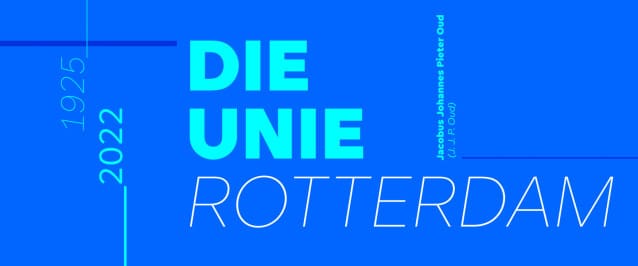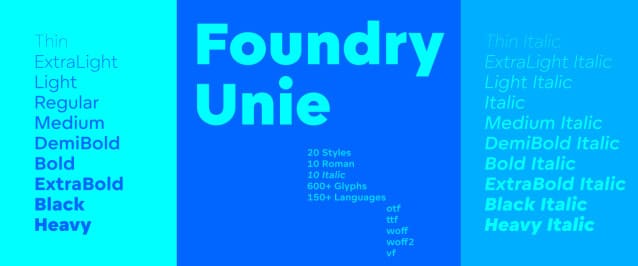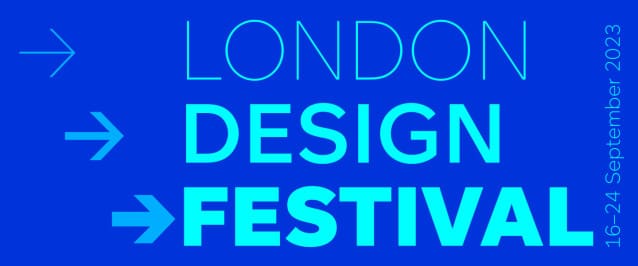
Foundry Unie Font Family, born from simplistic pan-European ideals of fraternity and working partnerships, that it works anywhere. Appropriately named, Foundry Unie owes a lot to the modernist movement in the ‘interbellen’, and to the geometric type experiments from De Stijl and Bauhaus. It also reflects the seemingly open, tolerant, friendly, hard-working, and efficient society we live in.
A geometric sans with an unmistakably European tradition. Its pedigree is discernible: Jan Tschichold’s 1929 ‘Universal’ alphabet, Paul Renner’s ‘Futura’, and Adrian Frutiger’s ‘Avenir’, which Frutiger once described as his finest work. Many other typefaces have contributed to Unie’s output, like Edward Johnson’s London Underground Transport typeface, the lowercase ‘u’, a prevalent shape from this period.
The influential and brightly coloured facade of the ‘Die Unie’ café, Rotterdam, designed by the De Stijl architect, Jacobus Johannes Pieter Oud (J. J. P. Oud), in 1925. With its inspiringly simple geometric letters emblazoned high above the street – visually shouting ‘here is a café where we can all gather together’. This open outlook into a universal future is where Foundry Unie (Dutch word for Union), naturally gained its name.
When we relaunched The Foundry Types in 2020, the new website needed a new typeface that worked well on screen and reflected our design ethos. We tried using Foundry Context from our library, that worked reasonably well but was predominately designed for print and not primarily for screen use. We felt the new font should be designed for screen (small or large), and it is more open to work at small sizes.
Furthermore, we approached designing the website and typeface with a similar philosophy to the De Stijl art movement. Where the De Stijl founders and artists believed, there was a utopian approach to aesthetics through function, line, and specific colours. And that essentialism in which the art refers to the essence at the core rather than using unnecessary elements. Also, that integration, in which all elements must be balanced and equal.
Our desire to create an extremely neutral, seemingly effortless typeface, very round, open, and minimal. Foundry Unie appears geometric, but that belies the amount of time and effort that goes into refining weights, proportions, stroke widths, and terminals to achieve a balance geometric appearance. Ultimately, in the larger sense, it is humanistic in that it reaches back to before the Renaissance to a more classical abstract Hellenistic idea of geometry and proportion.
The large x-height, clean appearance, and optical recognition characteristics make Foundry Unie a widely chosen font for neutrality and clarity. The open terminals of ‘C, G, J, S, a, c, e, f, g, and t‘, do not flare or distort through the weight range and has an even smooth colour when set. With low contrasting appearance and sympathetic shapes, FoundryUnie offers a calming understated feeling that appeals to a spectrum of branding sectors and where applications for print, screen and mobile are at a premium.
Foundry Unie has no, ’toeters en bellen’, simplicity belies it superb draughtsmanship and purity of line that give it its ‘ubiquitous’ character – not ubiquitous in a derogatory sense, it is a font that is just there, not noticeable. Beatrice Warde’s typographic canon, ‘The Crystal Goblet’ describes it well, type, and in the case of FoundryUnie, is a crystal clear carrier of information without imposing itself between the text and the reader.
Foundry Unie is a 10 style family of Thin, ExtraLight, Light, Regular, Medium, DemiBold, Bold, ExtraBold, Black, and Heavy each with Italics. Includes an alternative slashed zero, alternative positive and negative circled numbers, a Bitcoin symbol, arrows, and extended ligatures including a ‘www’ ligature.